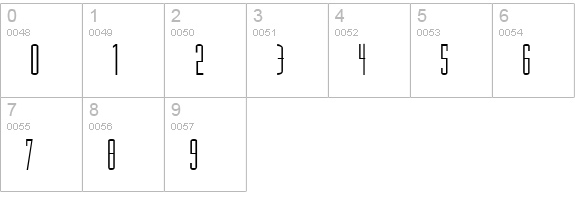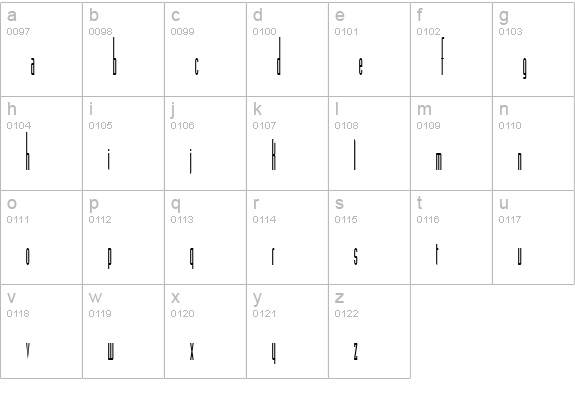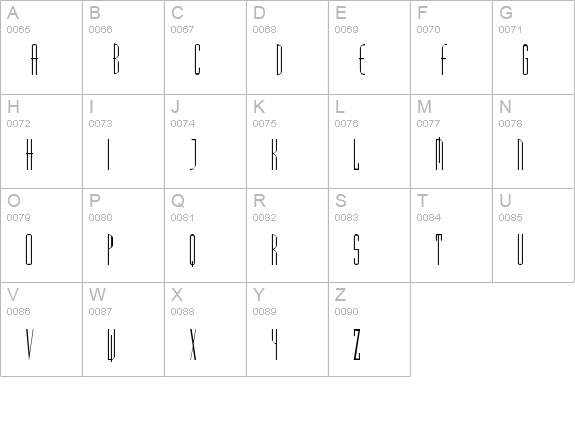
Madrid Regular is the standard, neutral variant in the Madrid typeface family \xE2\x80\x94 well suited to general body text, paragraphs, and standard typographic work.
Madrid Regular font is a stunning typeface that combines elegance and versatility. With its clean lines and balanced proportions, this font is perfect for a wide range of design projects. Whether you are creating a professional logo, a stylish branding campaign, or a captivating website, Madrid Regular will elevate your work to a whole new level. One of the most remarkable aspects of Madrid Regular font is that it is free! That's right, you can freely download this remarkable font at FontsMarket.com. No need to worry about any hidden fees or complicated licensing agreements. Madrid Regular is available for everyone to enjoy and use in their creative endeavors. With its timeless appeal, Madrid Regular font is suitable for both print and digital designs. Its legibility and readability make it a fantastic choice for body text, headings, and captions. The carefully crafted letterforms ensure optimal readability, ensuring that your message will be delivered with clarity and impact. The versatility of Madrid Regular font is further enhanced by its extensive character set. It includes a wide range of special characters, punctuation marks, and accents, allowing you to create stunning designs in multiple languages. Whether you need to add a touch of elegance to a French poster or create a captivating headline in Spanish, Madrid Regular font has got you covered. In addition to its aesthetic appeal, Madrid Regular font is also highly functional. Its well-defined structure and consistent spacing make it easy to work with, both in print and digital formats. The font's OpenType features also enable you to customize your designs further, adding a personal touch and making them truly unique. So, if you are looking for a free, versatile, and visually stunning font, look no further than Madrid Regular. Download it today from FontsMarket.com and start creating captivating designs that will leave a lasting impression. With Madrid Regular font, the possibilities are endless, and your creativity knows no bounds.